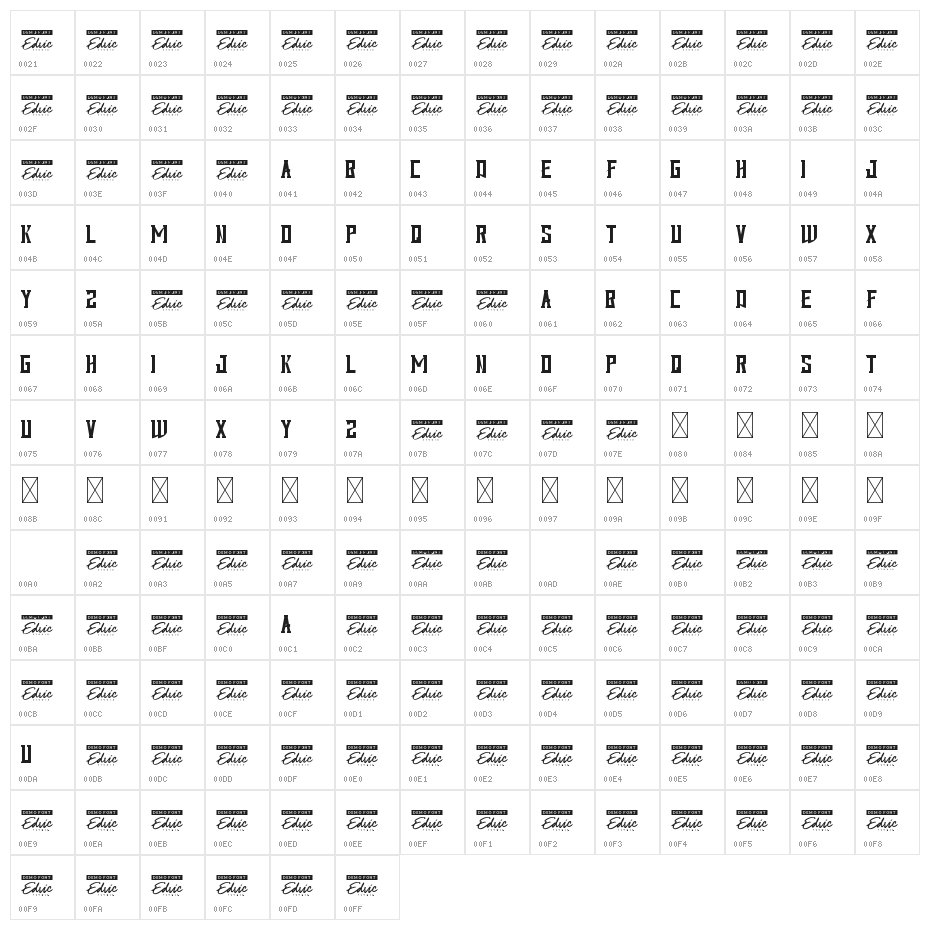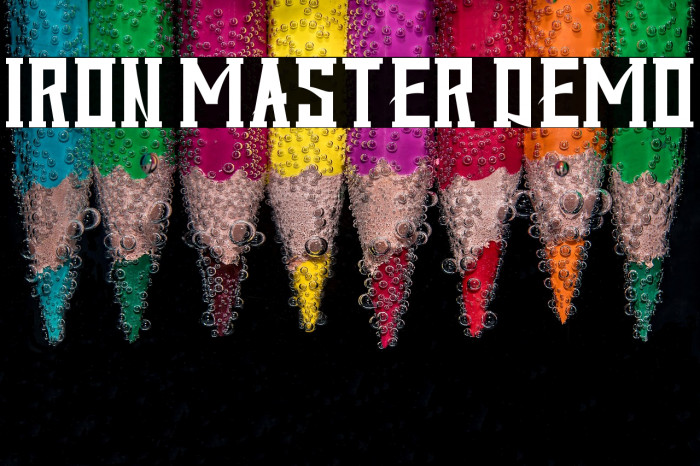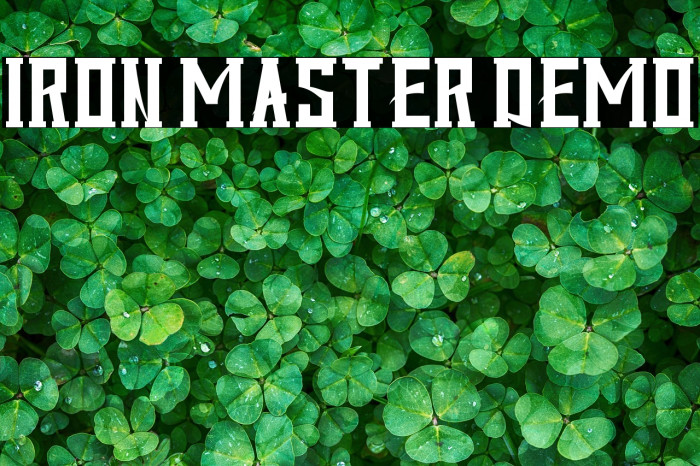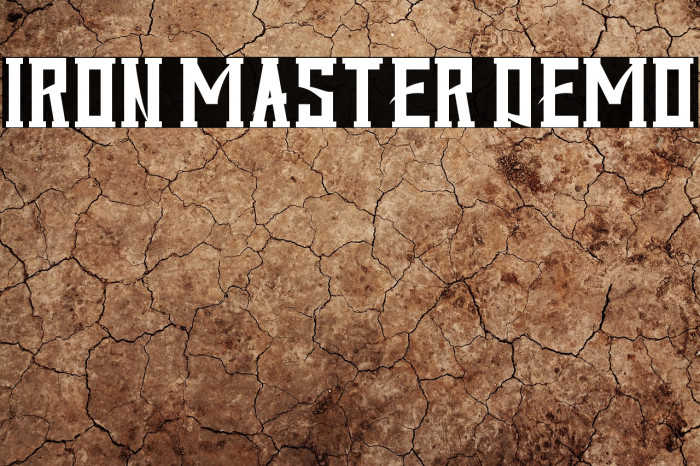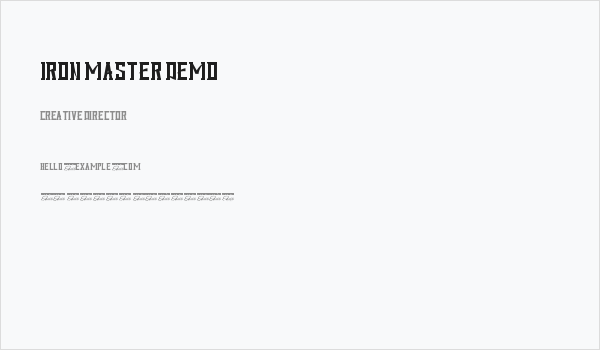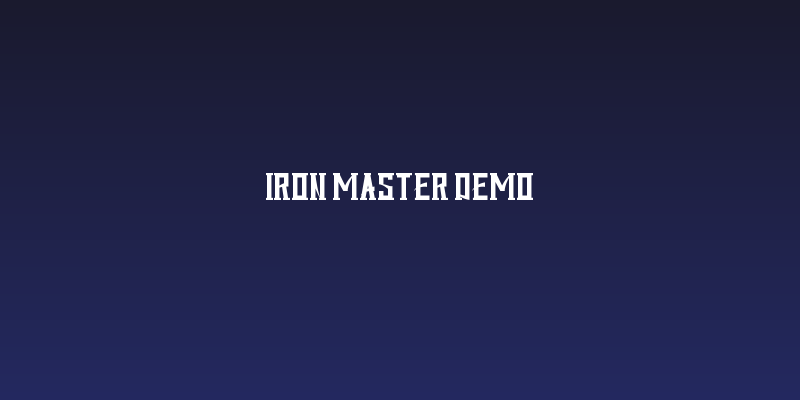
Iron Master Demo Font
Iron Master Demo Description
This font features a bold and striking design with sharp, angular edges and a strong presence. The uppercase letters are particularly prominent, with a geometric style that gives them a modern and industrial feel. The lowercase letters maintain a consistent style, complementing the uppercase with a slightly more refined look. The overall design is reminiscent of a futuristic or tech-inspired aesthetic, making it suitable for projects that require a bold statement. The font's unique character shapes and strong lines make it stand out, while still being legible and versatile.
Proposed ProjectsIdeal for branding, posters, headlines, and any project needing a strong, modern look.